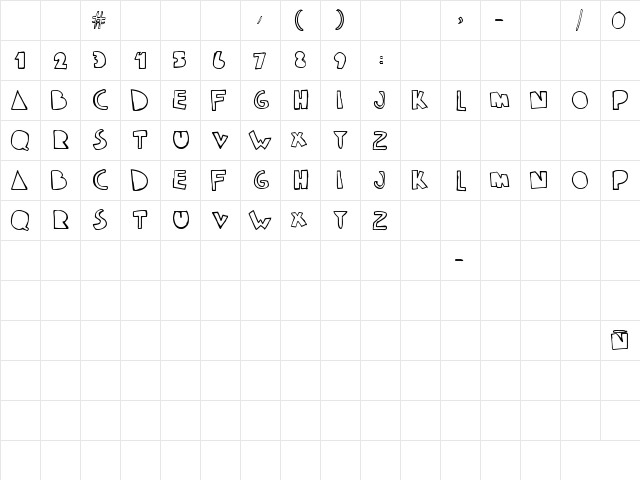
klam Regular Font Preview
klam Regular
Design Context for klam Typeface
klam is a composed and adaptable typeface that performs quietly and consistently across a wide range of design contexts.